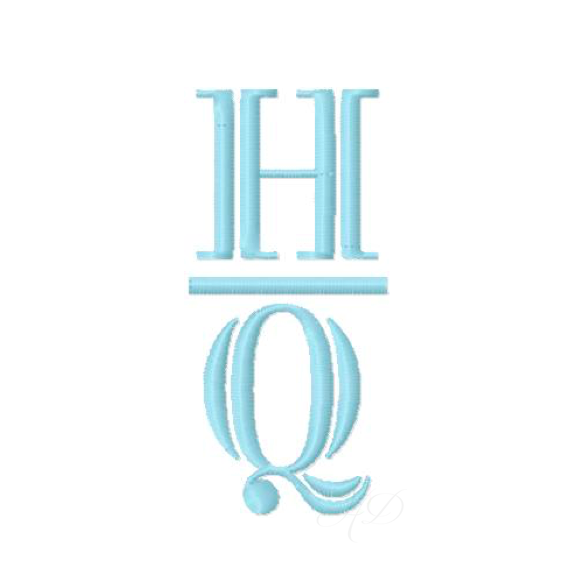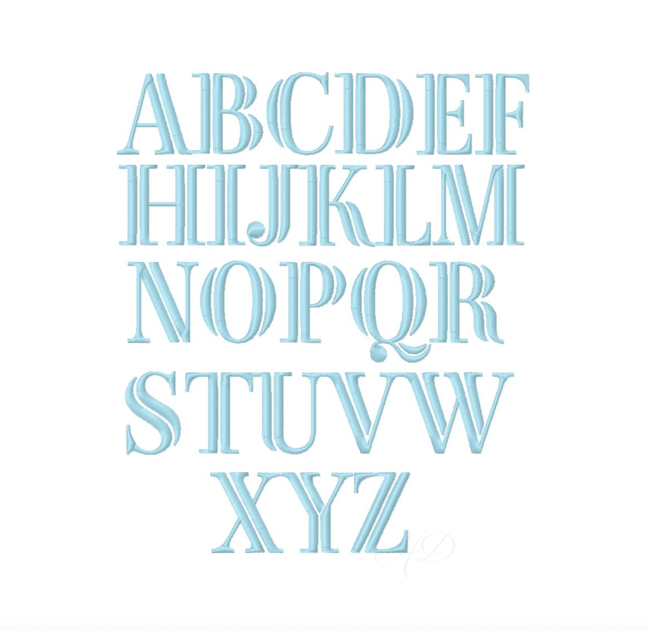
Henry Satin Embroidery Font
Transform your creative projects with the Henry Satin Embroidery Font. This versatile embroidery font package includes five sizes—.75", 1", 1.5", 2", and 2.5"—specifically designed to fit within a 4x4 hoop, making it perfect for a variety of monogramming needs. Each size features elegant satin stitch columns and includes a coordinating dash for beautifully stacked monograms.